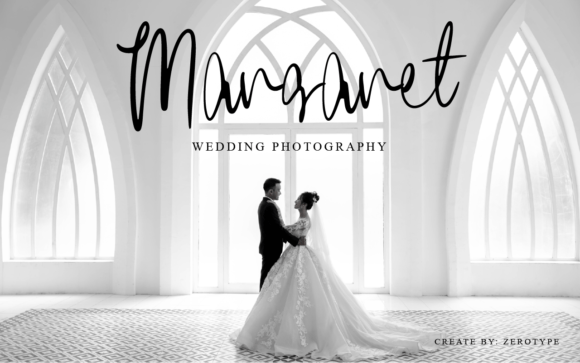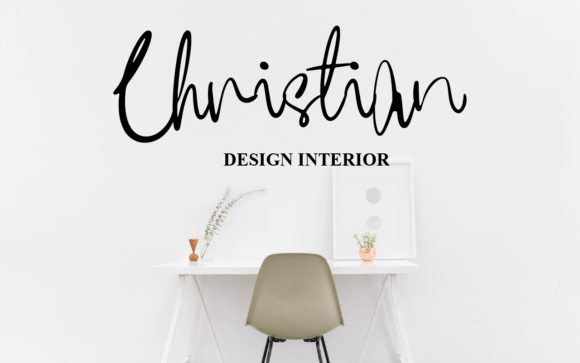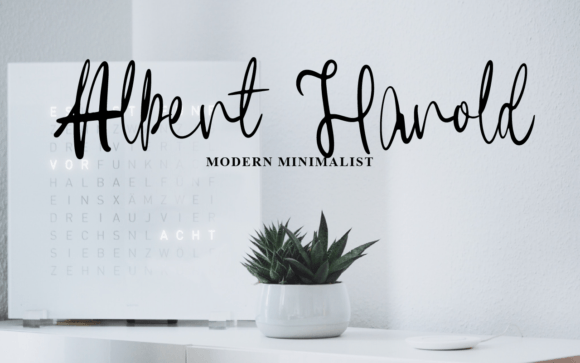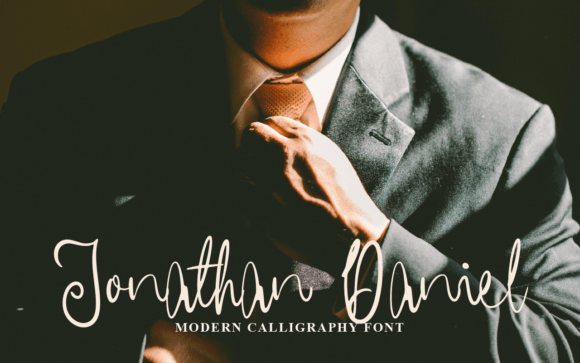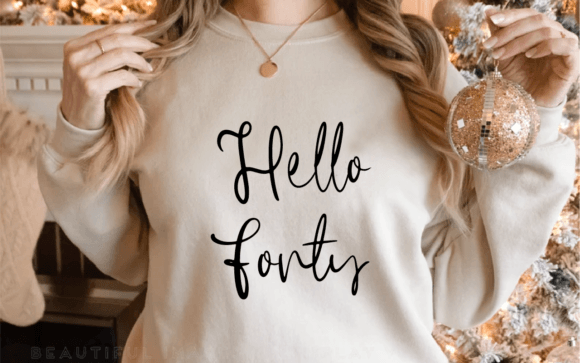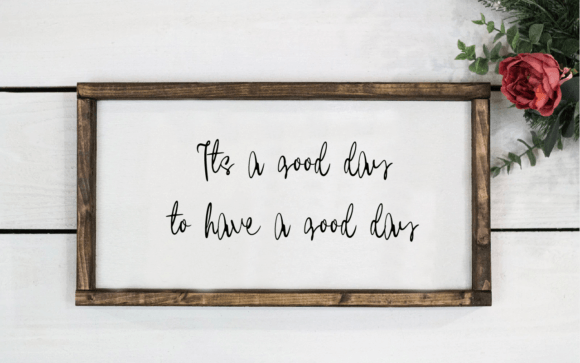
Discovering the Timeless Elegance of a Script Font
As a designer, there’s nothing quite like the thrill of discovering a new font that sparks creativity and sets your imagination ablaze. For me, it was the moment I stumbled upon the Ariana Jessica Font – a true masterpiece that left me in awe of its intricate swirls and flourishes.
This beautiful script font is a versatile tool designed to elevate any project with its elegant and sophisticated charm. Its flowing lines and delicate curves make it a stunning choice for designers seeking to add a touch of sophistication to their work. Whether it’s a wedding invitation, a luxury brand’s logo, or a beautifully crafted book cover, the Ariana Jessica Font is sure to make a lasting impression.
For designers, the Ariana Jessica Font is a valuable asset that offers endless possibilities for creative expression. Its unique character and refined style make it a go-to choice for those who demand nothing but the best in terms of typography and design.
Ariana Jessica Font Key Features
- Unique Characteristics: Ariana Jessica Font features a unique blend of modern and classic elements, with a touch of elegance and sophistication
A Designer’s Take on the “Ariana Jessica Font”
I recently had the chance to work with the “Ariana Jessica Font”, and I must say it’s an interesting choice. Here’s what I think.
- It has a unique, modern feel that could work well for certain projects.
- The font is highly legible, making it suitable for body text.
- It comes in a variety of weights, which can be useful for creating visual hierarchy.
- The font can be a bit too playful for more formal projects.
- Some characters may not be as refined as others, which can affect the overall aesthetic.
- The font family could benefit from more consistent design elements.
The “Ariana Jessica Font” has some great qualities, but it also has its limitations. While it’s not the perfect choice for every project, it could work well for more casual, creative endeavors. If you’re looking for a modern font with a lot of character, it’s worth considering. However, if you need something more formal or polished, you may want to look elsewhere.
The Ariana Jessica Font is a versatile font that can be used for various purposes, including:
- Business cards and resumes
- Food and drink menus
- Headings and titles in documents and presentations
For best results, use the Ariana Jessica Font in combination with a clear and concise design to make your content stand out.
Alternatives to Ariana Jessica Font for Designers
Compared to Ariana Jessica Font, Open Sans is more modern and has a cleaner design. While Ariana Jessica Font has a more playful and cursive feel, Open Sans is more straightforward and professional.
Lato is more condensed than Ariana Jessica Font and has a more geometric feel. While Ariana Jessica Font is more whimsical, Lato is more sophisticated and modern.